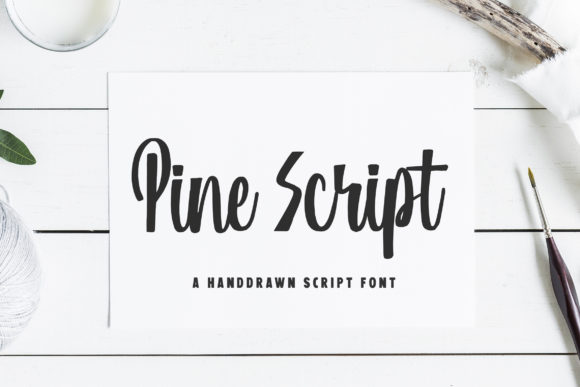
Introducing Pine Script, the script font that will add a touch of personality to your designs. With its captivating curves and elegant swashes, Pine Script is perfect for creating logos, branding, social media graphics, and more.
Pine Script is a versatile font that can be used for a variety of projects, from invitations to book covers. It's also perfect for adding a touch of flair to your website or blog.
* A complete set of upper and lowercase characters
* Numbers and punctuation
* A variety of stylistic alternates